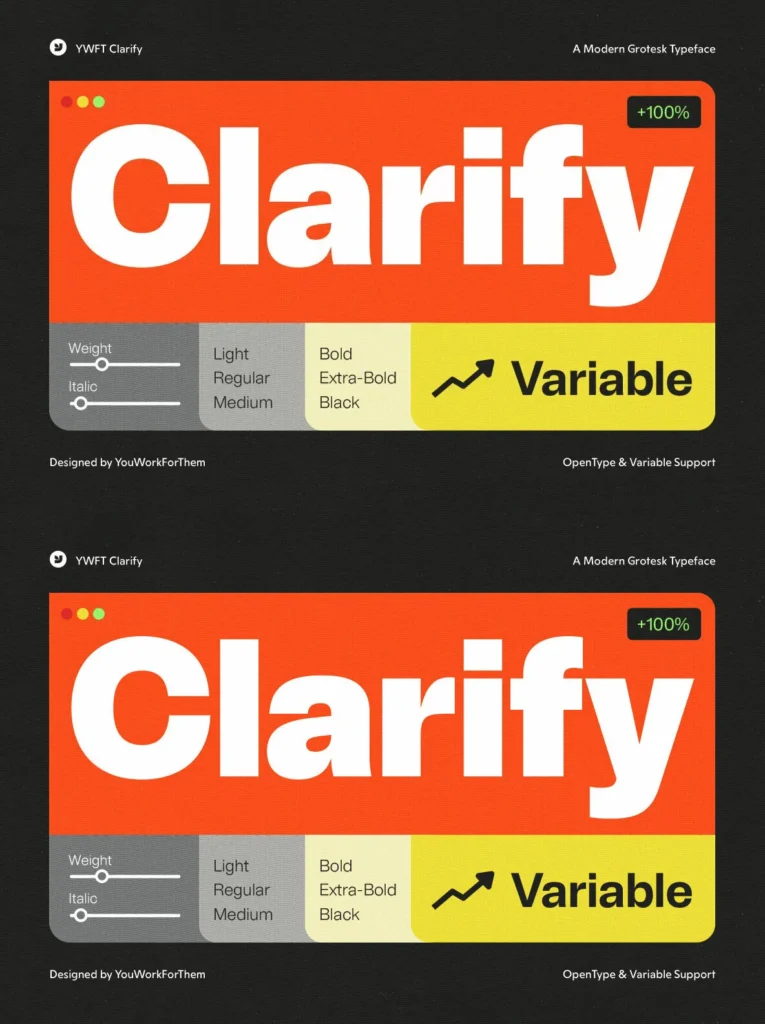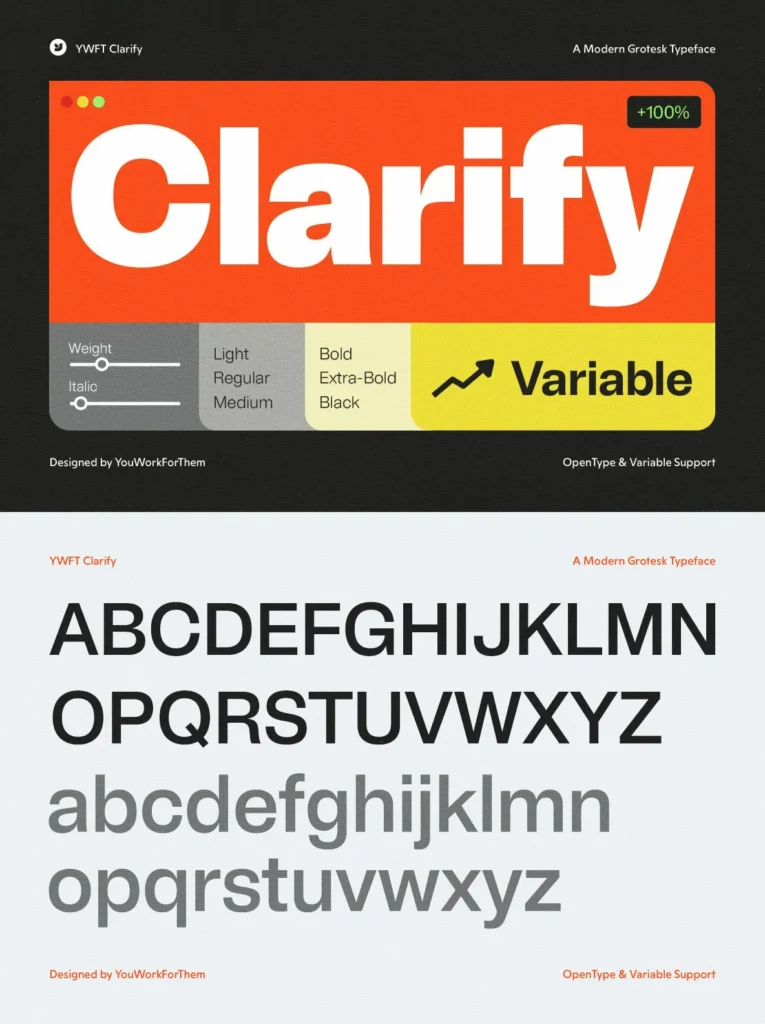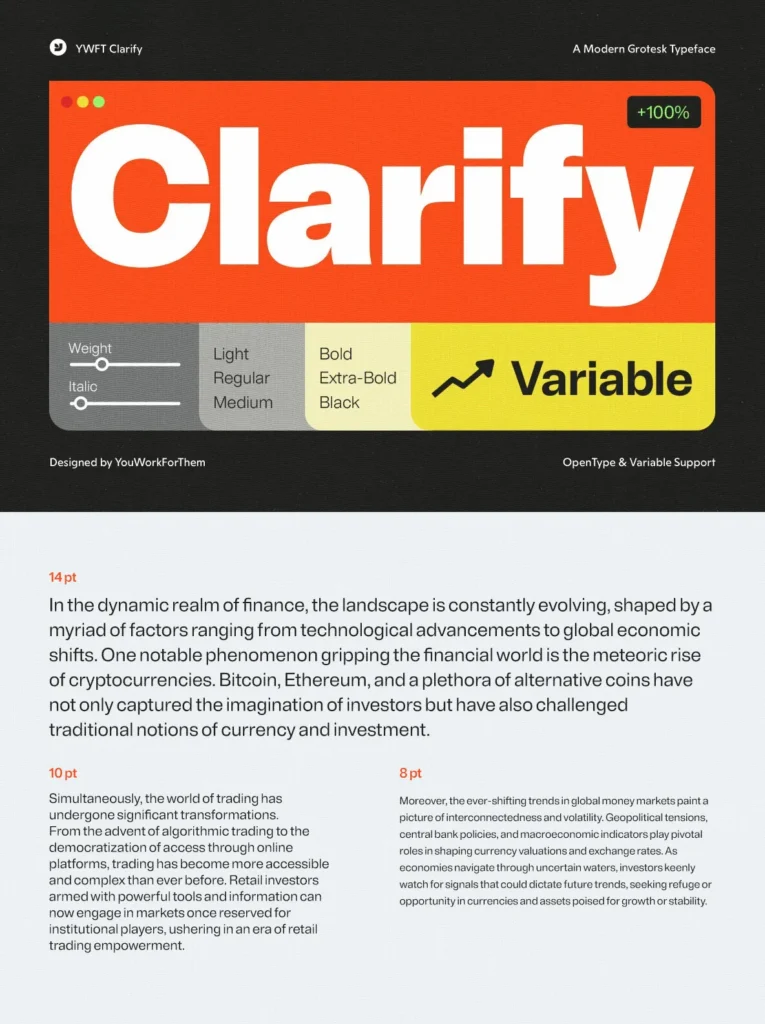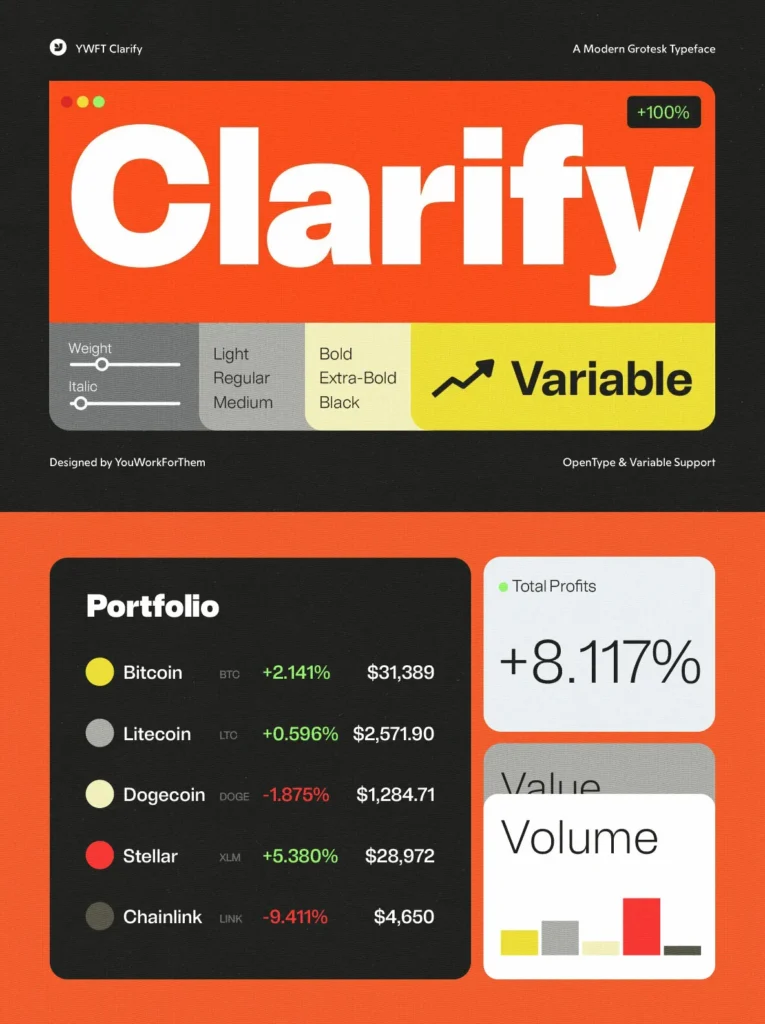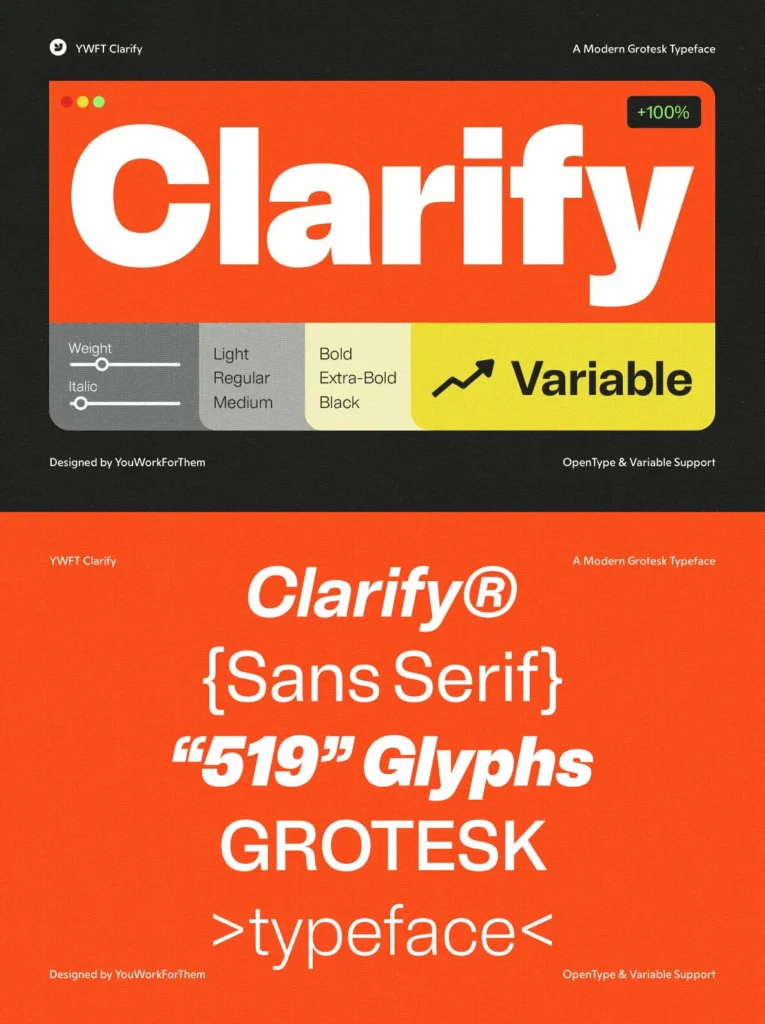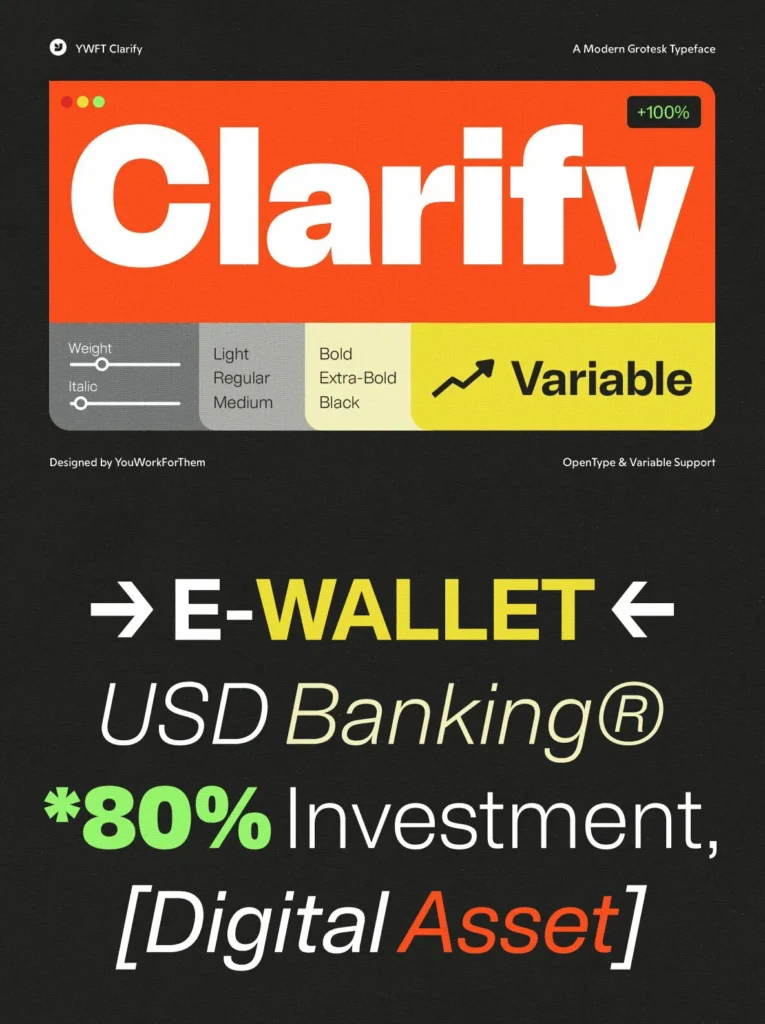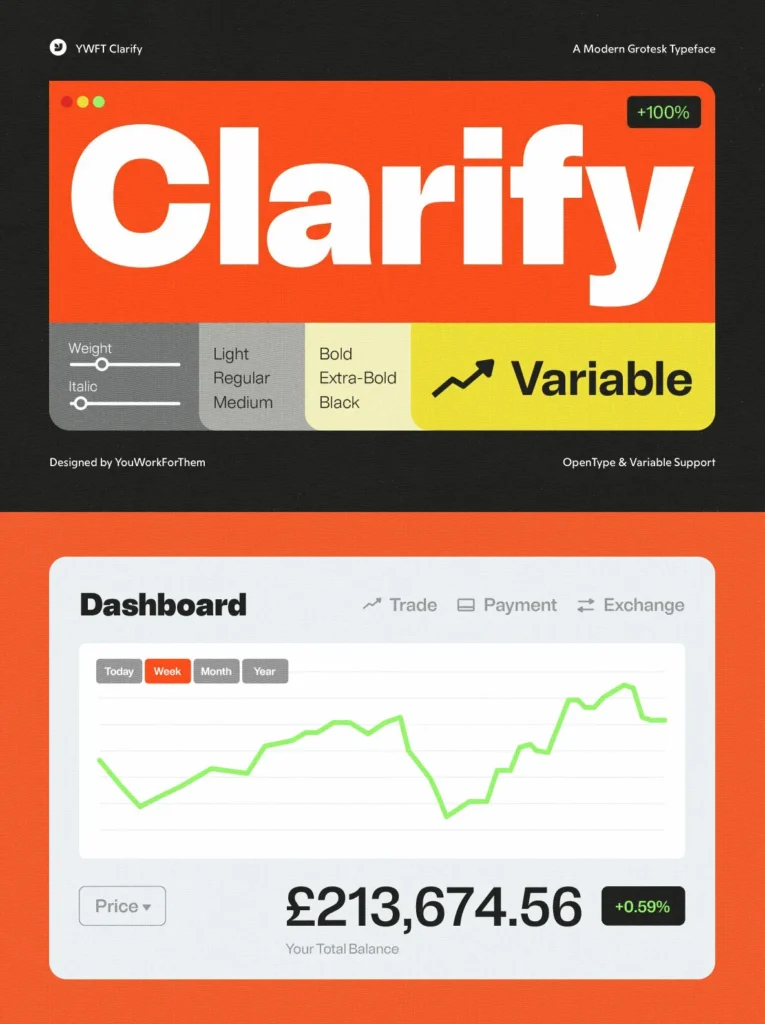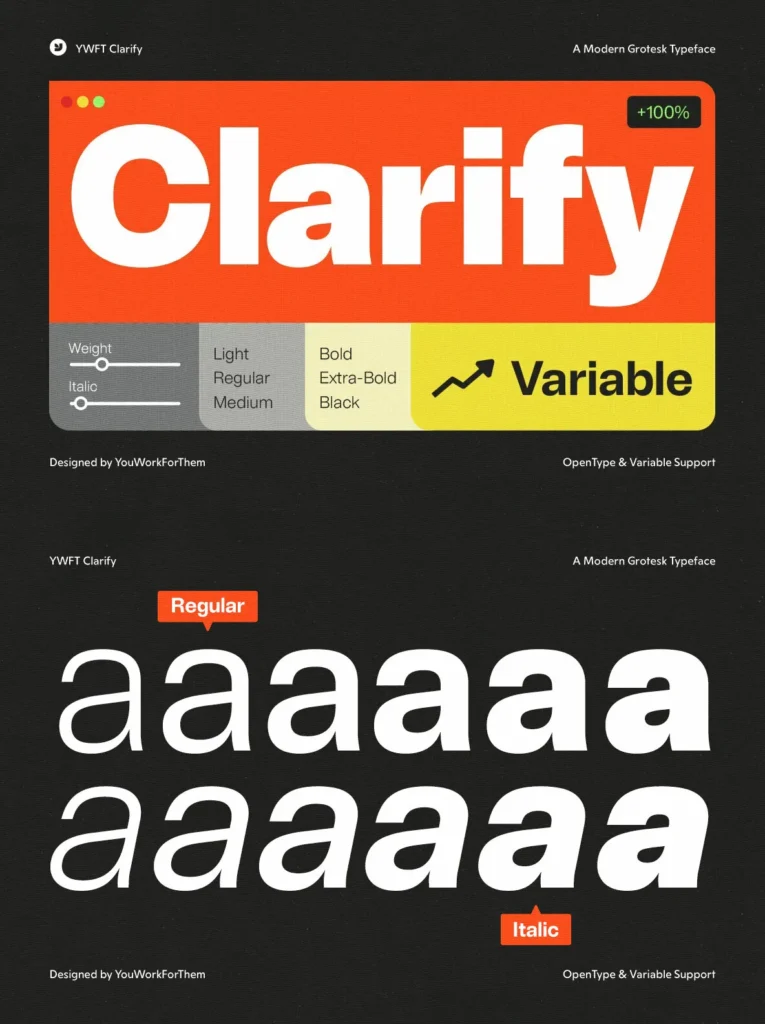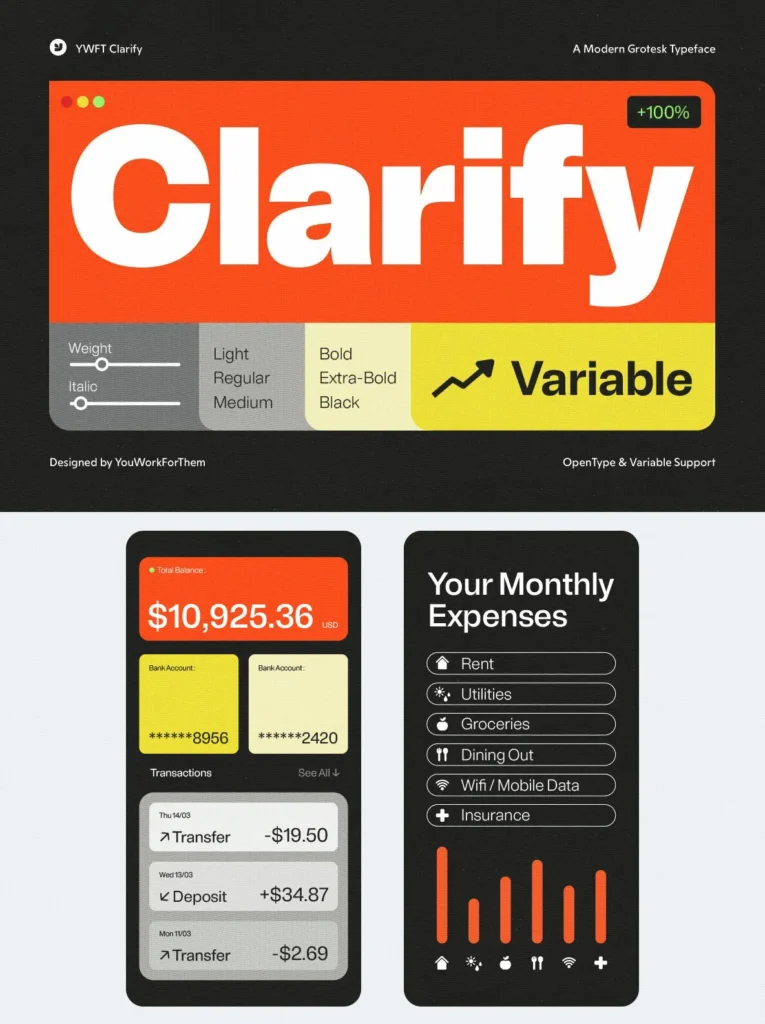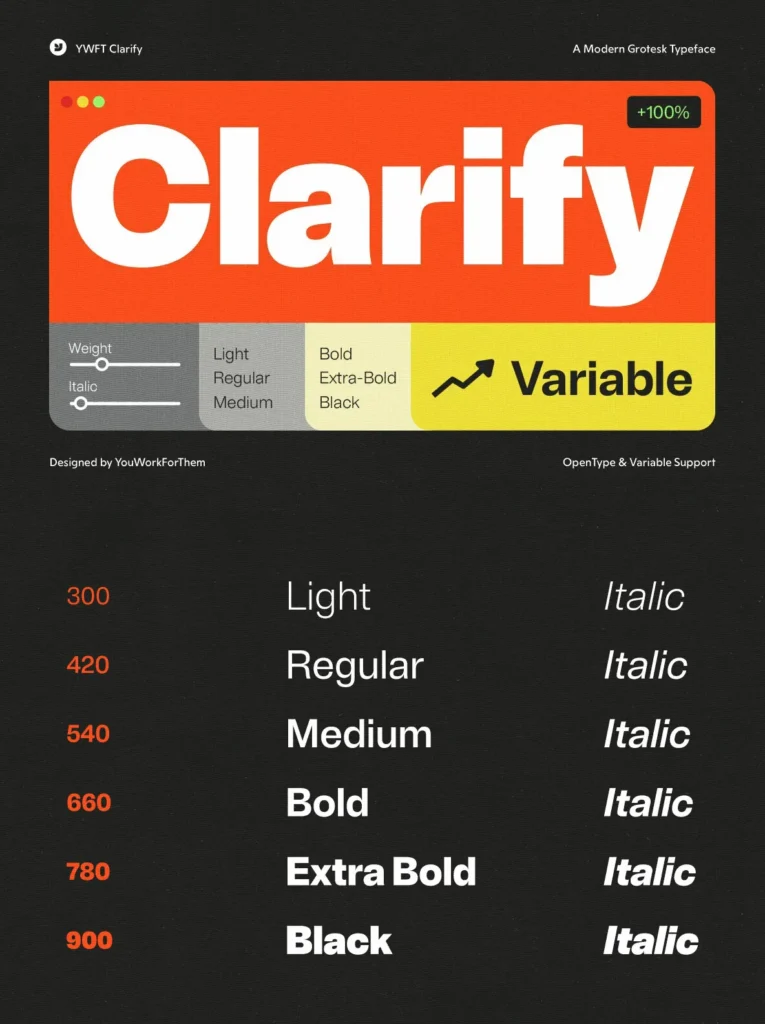
YWFT Clarify: A Modern Grotesk Built for Digital Precision
YWFT Clarify presents an updated approach to the grotesk sans serif tradition, ideal for the demands of contemporary digital design. This font excels in user interfaces, especially in mobile and fintech environments, where clarity takes precedence. With precise, clean lines and outstanding legibility, YWFT Clarify maintains a structured elegance that supports both branding and functional communication.
Its comprehensive range includes six weights, from Light to Black, each matched by a corresponding italic. The variable font version facilitates nuanced control over weight transitions, introducing flexibility for responsive web environments. Designed to perform across a variety of platforms, including graphic software and online design tools, YWFT Clarify ensures consistency in digital branding and data visualization.
Features:
Six weights with matching italics for versatility across applications
Variable font option for smooth weight transitions
Optimized for on-screen readability, including fintech and crypto dashboards
Supports complex data visualizations with a robust character set
YWFT Clarify stands as a definitive resource for designers who value reliability and clarity—serving projects that require both contemporary style and meticulous attention to digital usability.